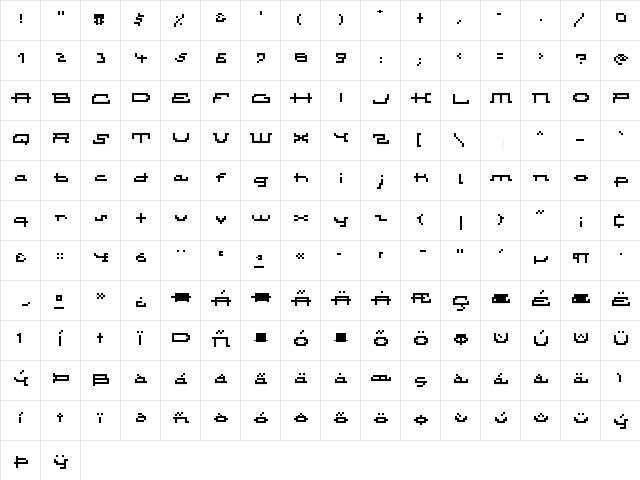
AtomicInline Medium Font Preview
AtomicInline Medium
Design Context for AtomicInline Typeface
AtomicInline is built around its visual character rather than neutral utility — its distinctive forms are designed to make an impression at display sizes.
Font Pairing: Pair with a clean neutral sans-serif for body copy to let AtomicInline's character lead without overwhelming the composition.
Pro Tip: Treat AtomicInline as the centrepiece of your typographic hierarchy. One strong heading set in a decorative face can carry an entire layout.